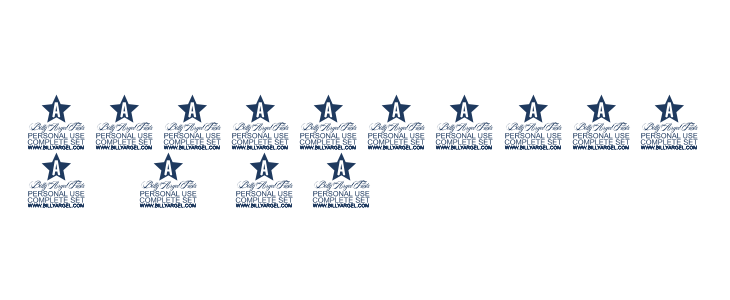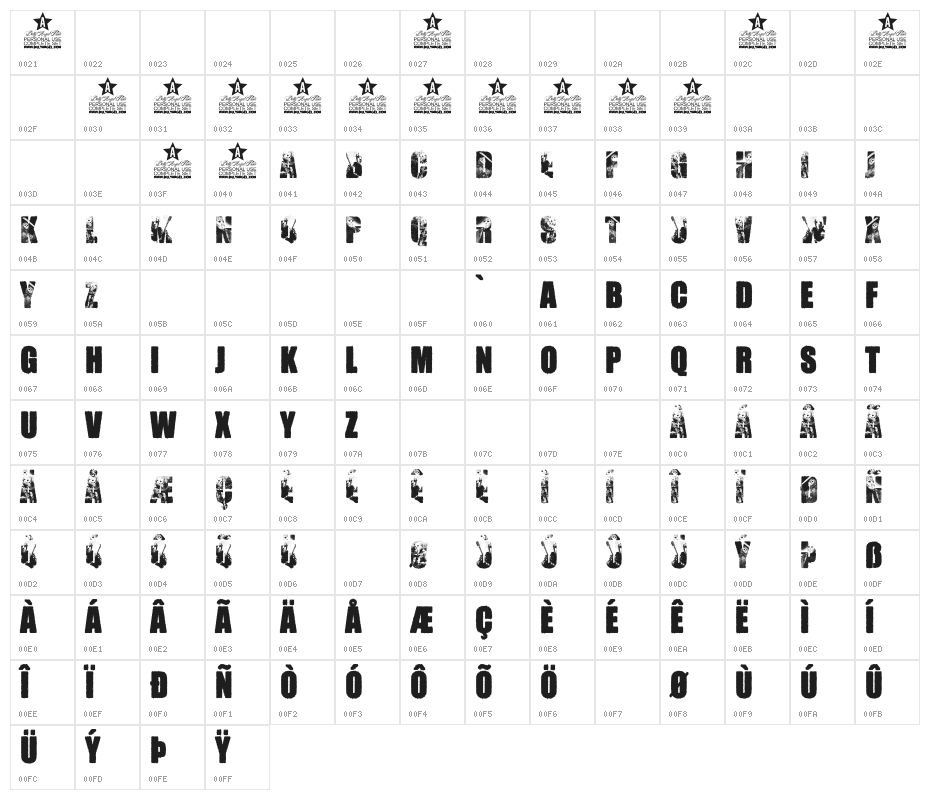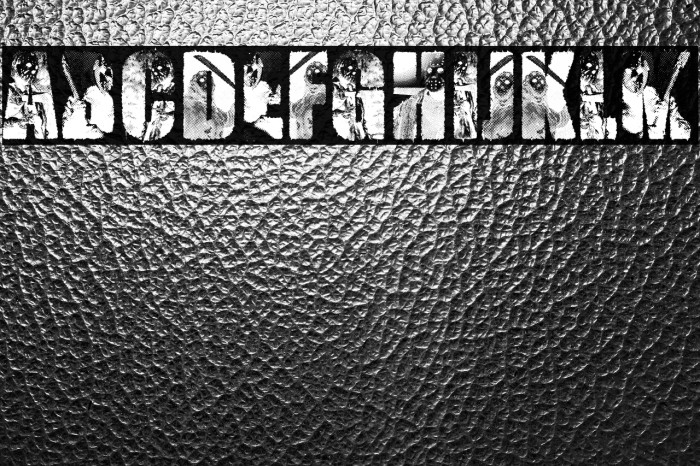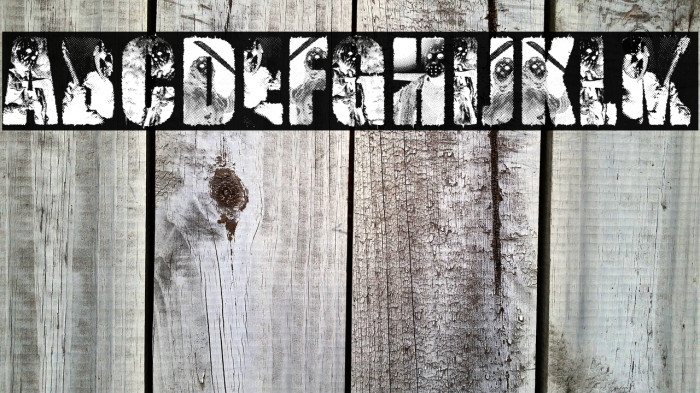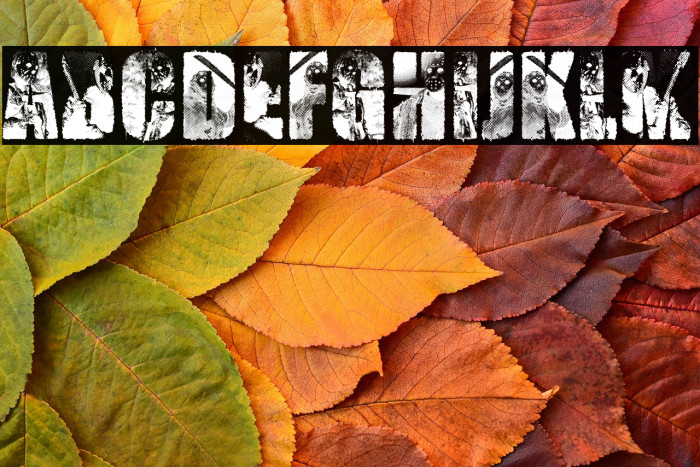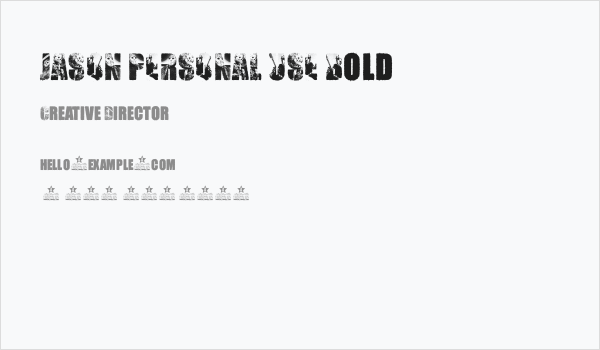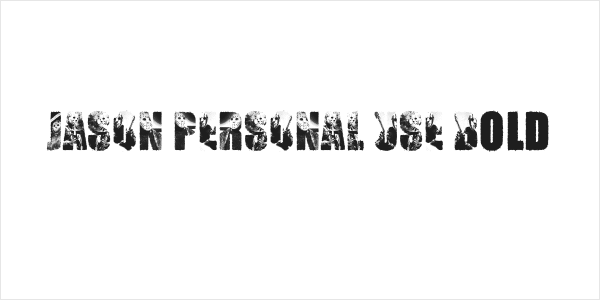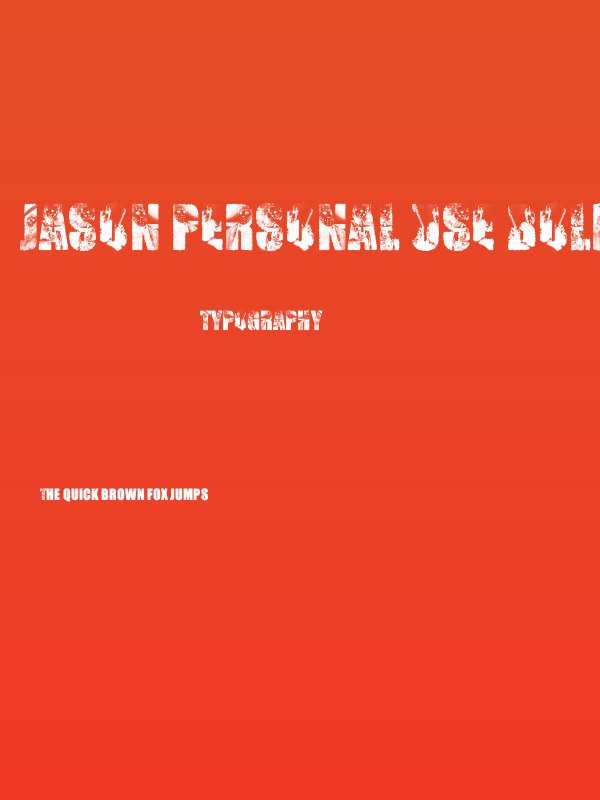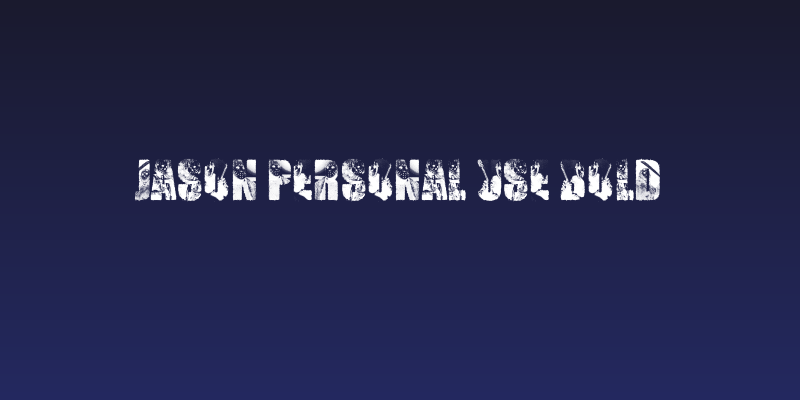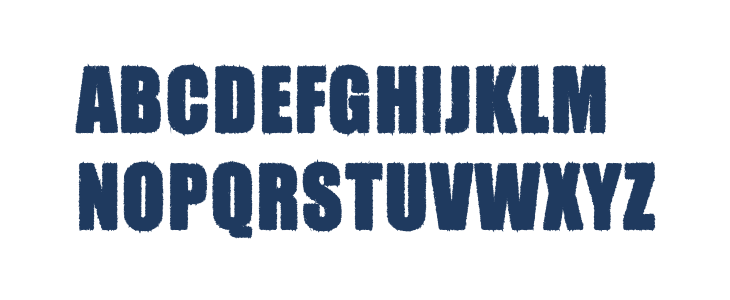
JASON PERSONAL USE Bold Font
JASON PERSONAL USE Bold Description
This font features a bold and rugged design with a distressed texture, giving it a gritty and impactful appearance. The uppercase letters are prominently displayed with a heavy weight, making them ideal for attention-grabbing headlines. The texture within each character adds a unique, almost grunge-like aesthetic, perfect for projects that require a strong visual presence. The font's style is reminiscent of urban or industrial themes, making it suitable for creative and edgy designs.
| Proposed Projects | Ideal for posters, album covers, branding for edgy products, or any design requiring a strong, impactful typeface. |